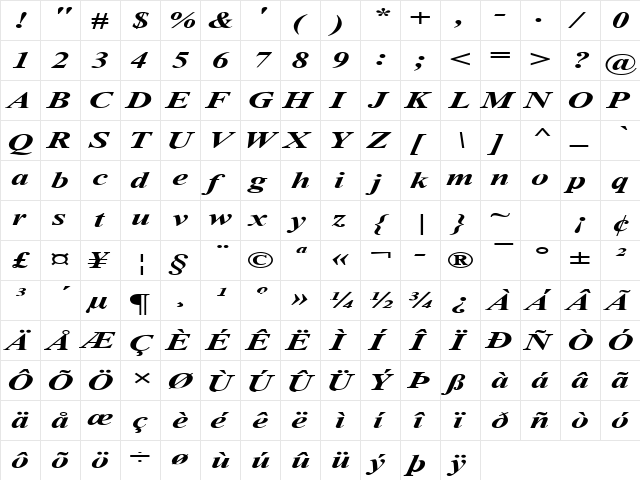
Brain Damage 2 Bold Italic
Design Context for Brain Damage 2 Typeface
Brain Damage 2 is a composed and adaptable typeface that performs quietly and consistently across a wide range of design contexts. The slanted form adds forward momentum and visual energy. Its bold stroke weight gives it real presence on the page.